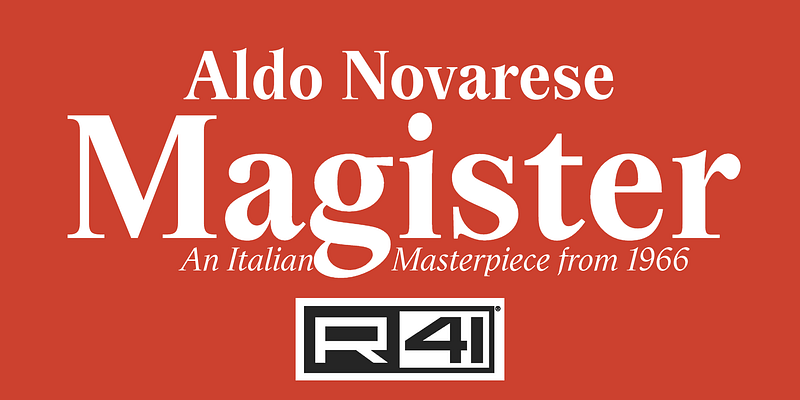
The most complete and representative collection of fonts designed by the Italian type designer Aldo Novarese for the Nebiolo Foundry and R41.
The Aldo Novarese Collection
All the most iconic fonts from the legendary Nebiolo Foundry in Turin, designed by Aldo Novarese, digitized on the basis of their original design and completely authentic.